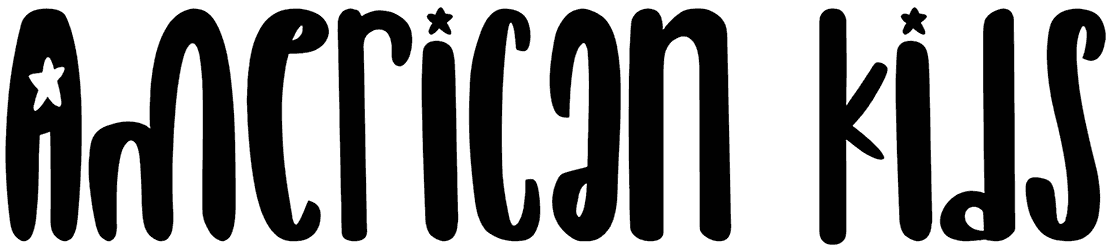
American Kids Font
Success in designing high-end exclusive graphic content for children, including illustrations, logos, flyers, brochures, or storybook covers, is what comes to you after consciously selecting a beautiful cartoon font the same to American Kids.
Since it has elongated and curved chunky characters, it can lead to a feeling of dynamic, jauntiness, childishness, or vivacity. If you want to carry an endless list of fonts, don’t hesitate anymore to visit our expanding archive.